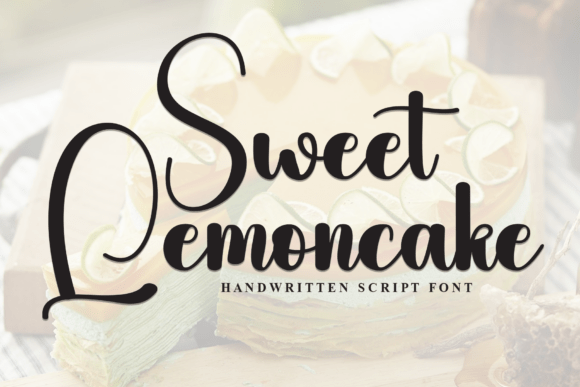
Sweet Lemoncake Font: Elevate Your Designs with Elegance and Sophistication
In the world of typography, few fonts manage to strike a balance between elegance and modernity as effectively as Sweet Lemoncake. This stylish script font has been gaining popularity among designers and brands looking to add a touch of sophistication to their visual communications. With its graceful strokes, fluid curves, and meticulously crafted letterforms, Sweet Lemoncake brings the beauty of hand-drawn calligraphy to the digital age, making it an ideal choice for a wide range of design projects.
A Modern Take on Traditional Calligraphy
Sweet Lemoncake is more than just a font; it’s a design statement. Its creation was inspired by the timeless elegance of hand-drawn calligraphy, but with a modern twist that sets it apart from more traditional script fonts. Each letterform is carefully crafted to ensure that the font flows naturally and smoothly, making it perfect for creating visually appealing text that captures the viewer’s attention.
The font’s design is characterized by its graceful strokes and fluid curves, which give it a dynamic and lively feel. At the same time, the carefully polished details ensure that Sweet Lemoncake exudes a refined and sophisticated charm, making it suitable for high-end branding, luxury packaging, and elegant invitations.
Ideal for a Variety of Design Projects
The versatility of Sweet Lemoncake makes it an excellent choice for a wide range of design applications. Here are some ideas on how to use this beautiful font to elevate your designs:
- Logos and Branding: Create a lasting impression with a logo that exudes elegance and sophistication. Sweet Lemoncake’s unique charm can help your brand stand out in a crowded market.
- Invitations and Event Design: Whether it’s a wedding invitation, a birthday party, or a corporate event, Sweet Lemoncake adds a touch of class and refinement to any invitation or event design.
- Packaging Design: For brands looking to convey luxury and quality, Sweet Lemoncake can be used to create stunning packaging that reflects the brand’s high standards.
- Social Media Graphics: Make your social media posts stand out with elegant and sophisticated text overlays. Sweet Lemoncake’s modern charm is sure to capture the attention of your followers.
Key Typographic Features
Sweet Lemoncake boasts several key typographic features that make it a standout choice for designers:
- Unique Letterforms: Each letter is carefully crafted to ensure that the font has a unique and distinctive look that sets it apart from other script fonts.
- Fluid Connections: The font features fluid connections between letters, creating a natural flow that mimics hand-drawn calligraphy.
- Elegant Strokes: The strokes are graceful and elegant, adding to the font’s sophisticated charm.
- Versatile and Readable: Despite its elegant appearance, Sweet Lemoncake remains highly readable, making it suitable for both headings and body text.
Design Tips for Using Sweet Lemoncake
To get the most out of Sweet Lemoncake, consider the following design tips:
- Pair with Neutral Backgrounds: Sweet Lemoncake’s elegance shines best against neutral backgrounds. Consider pairing it with solid colors, subtle gradients, or simple textures to make the text stand out.
- Experiment with Colors: While Sweet Lemoncake looks stunning in black or dark colors, don’t be afraid to experiment with different colors. Gold, blush pink, or navy blue can add a unique touch to your designs.
- Use for Headings and Subheadings: Sweet Lemoncake is perfect for headings and subheadings. Its elegance and sophistication can help draw attention to key information.
- Consider Font Pairing: For a more dynamic design, consider pairing Sweet Lemoncake with a sans-serif font for body text. This contrast can create a visually appealing hierarchy of information.
Sweet Lemoncake is a stylish script font that brings a touch of elegance and sophistication to any design project. Its modern take on traditional calligraphy, combined with its versatility and readability, makes it an excellent choice for designers looking to create visually stunning text. Whether you’re working on a logo, invitation, packaging, or social media graphics, Sweet Lemoncake is sure to elevate your designs and leave a lasting impression on your audience.
- What is Sweet Lemoncake Font?
- Sweet Lemoncake is a stylish script font designed to bring elegance and sophistication to your designs. It features graceful strokes, fluid curves, and carefully crafted letterforms.
- Is Sweet Lemoncake easy to read?
- Yes, despite its elegant and cursive nature, Sweet Lemoncake is designed to be readable, making it suitable for both headings and body text.